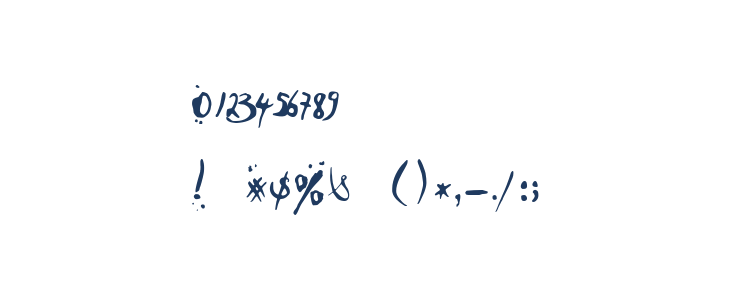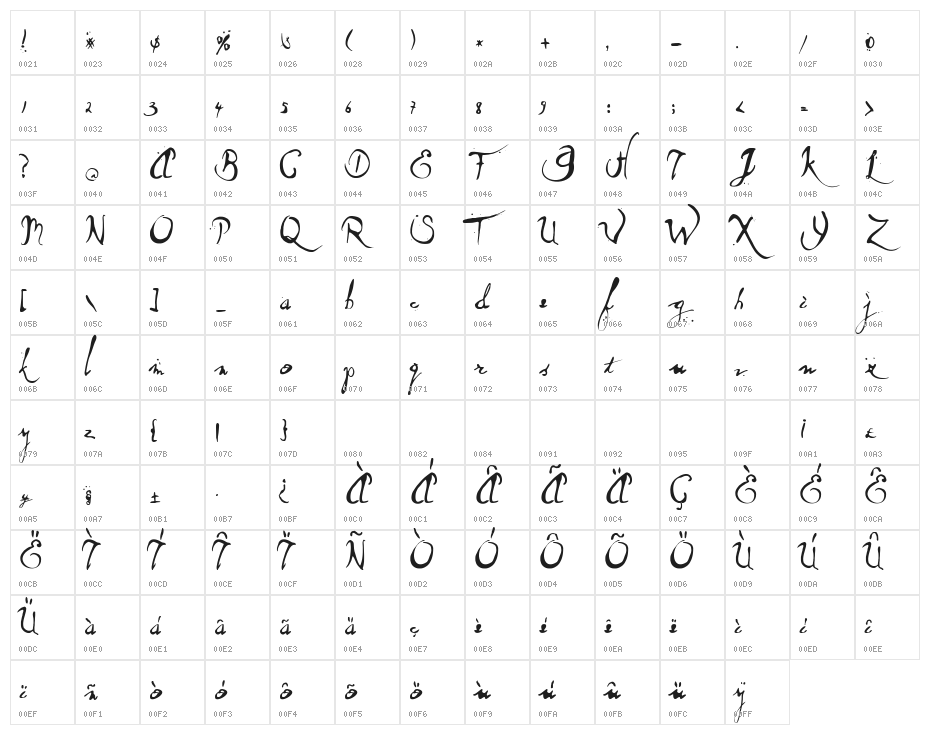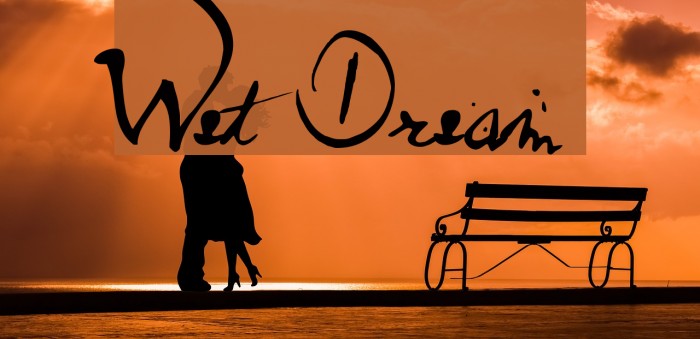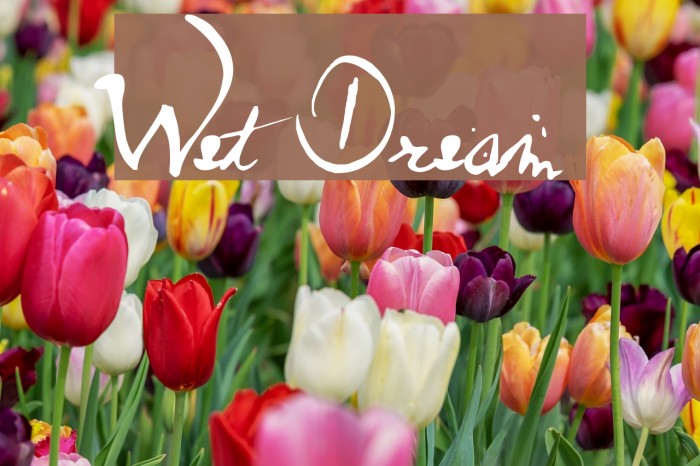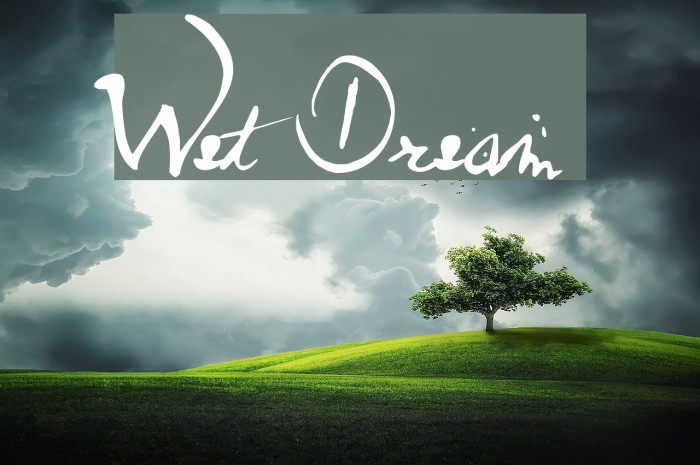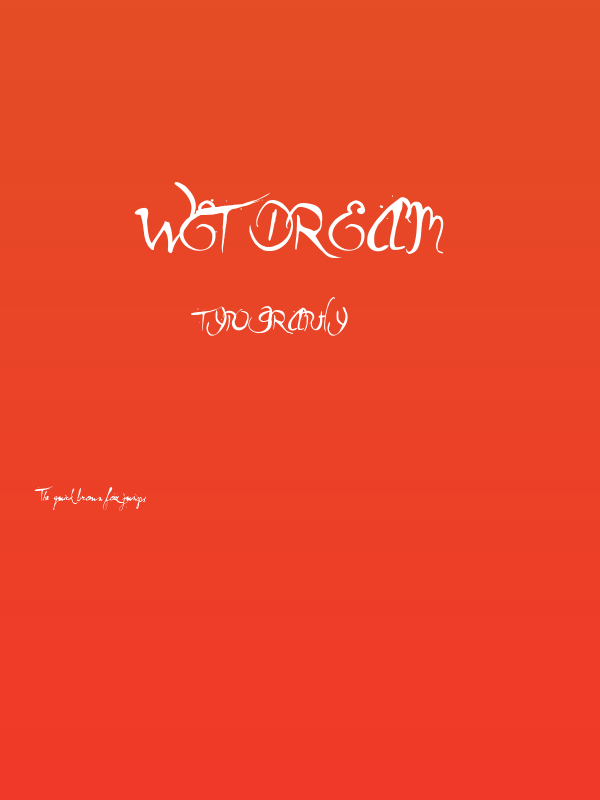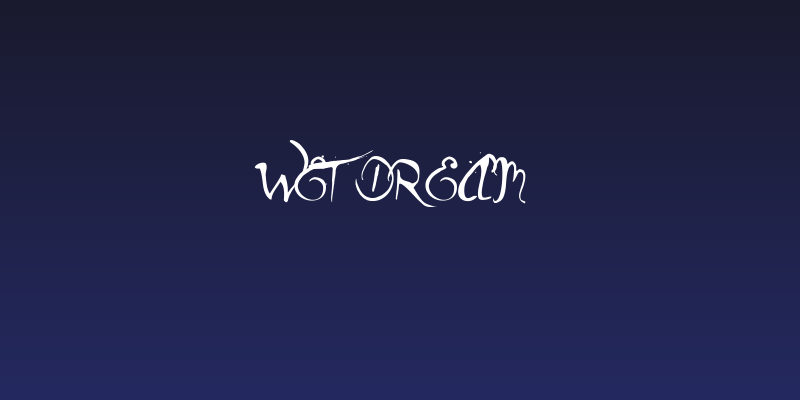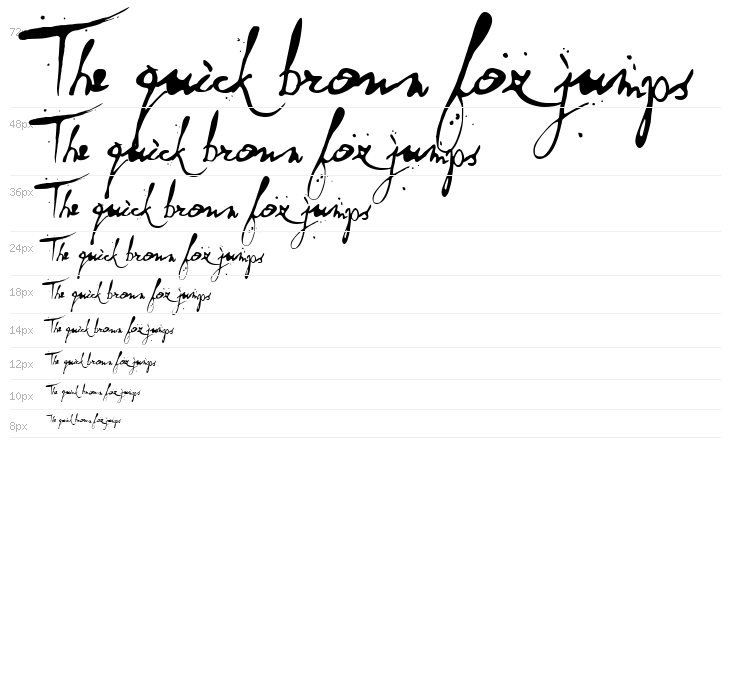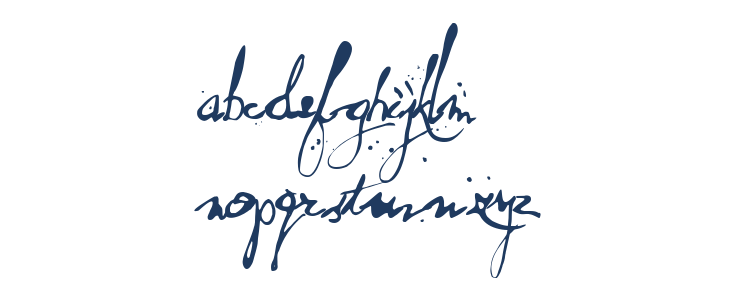
Wet Dream Font
Wet Dream Description
This font exhibits a highly artistic and expressive style, characterized by its fluid, calligraphic strokes that convey a sense of movement and dynamism. The uppercase letters are bold and sweeping, with exaggerated curves and flourishes that give them a dramatic flair. The lowercase letters maintain this fluidity, though they are more compact and intricate, with some letters connecting in a cursive manner. The numbers and special characters continue the theme, with unique, stylized forms that add to the font's overall artistic appeal. This font's design is reminiscent of ink splatters and brush strokes, adding a raw, organic feel that is both modern and edgy.
| Proposed Projects | Ideal for artistic projects, album covers, posters, and branding that seeks a bold, expressive touch. |